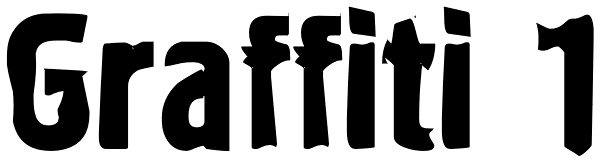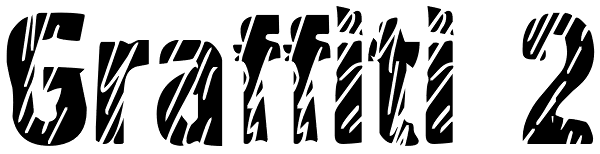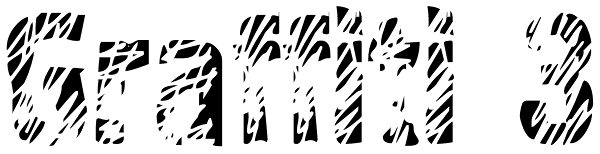
Graffiti
An experimental type family designed at ParaType in 1996 by Alexander Tarbeev, based on the forms of PT Hermes, 1993, by Tagir Safayev. For use in advertising and display typography.